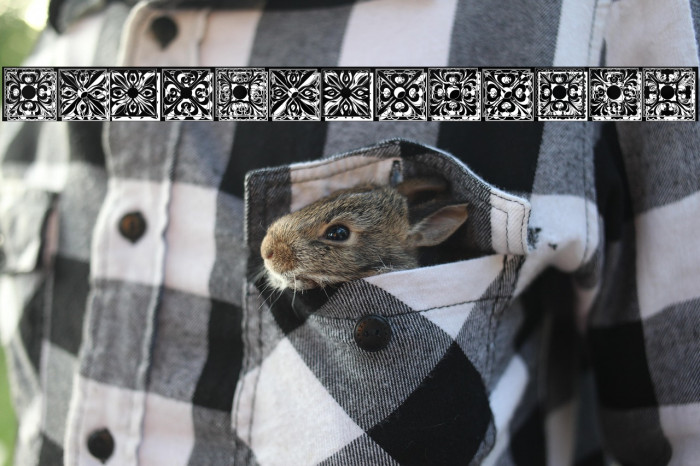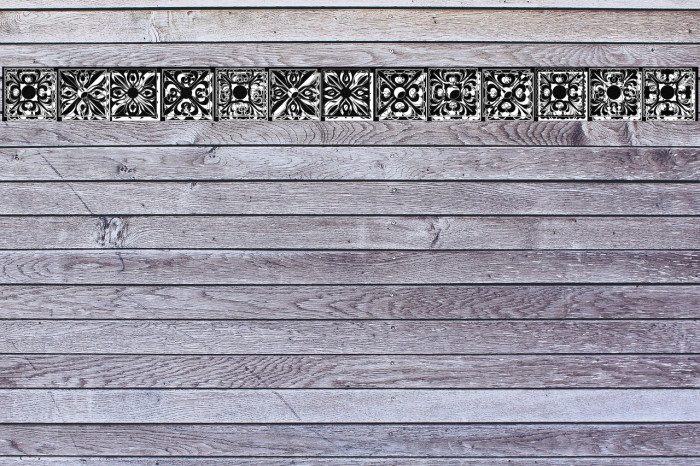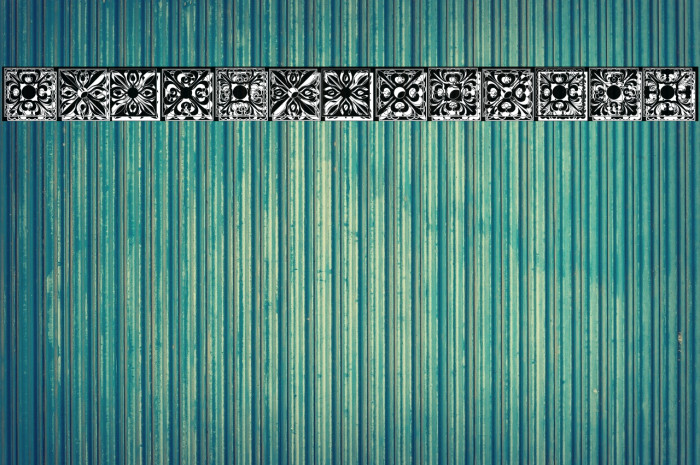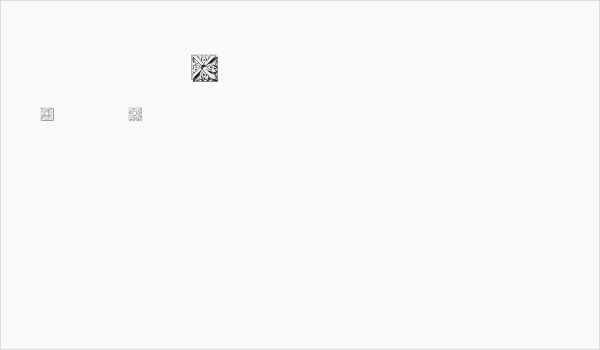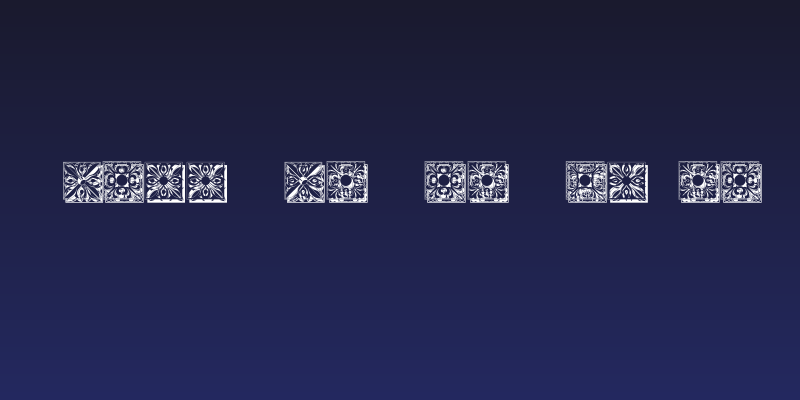
Tobacco Floral Regular Font
Tobacco Floral Regular Description
This design features a series of intricate floral patterns, each enclosed within a square frame. The motifs are highly decorative, showcasing a blend of symmetrical and organic shapes that create a sense of elegance and complexity. The black and white contrast highlights the detailed line work, making each square a unique piece of art. The overall appearance is reminiscent of vintage tile designs, with a touch of modern flair due to the crispness of the lines and the precision of the patterns.
| Use Case | Decorative elements |
| Proposed Projects | Ideal for decorative borders, wallpaper designs, textile patterns, or as ornamental elements in graphic design projects. |